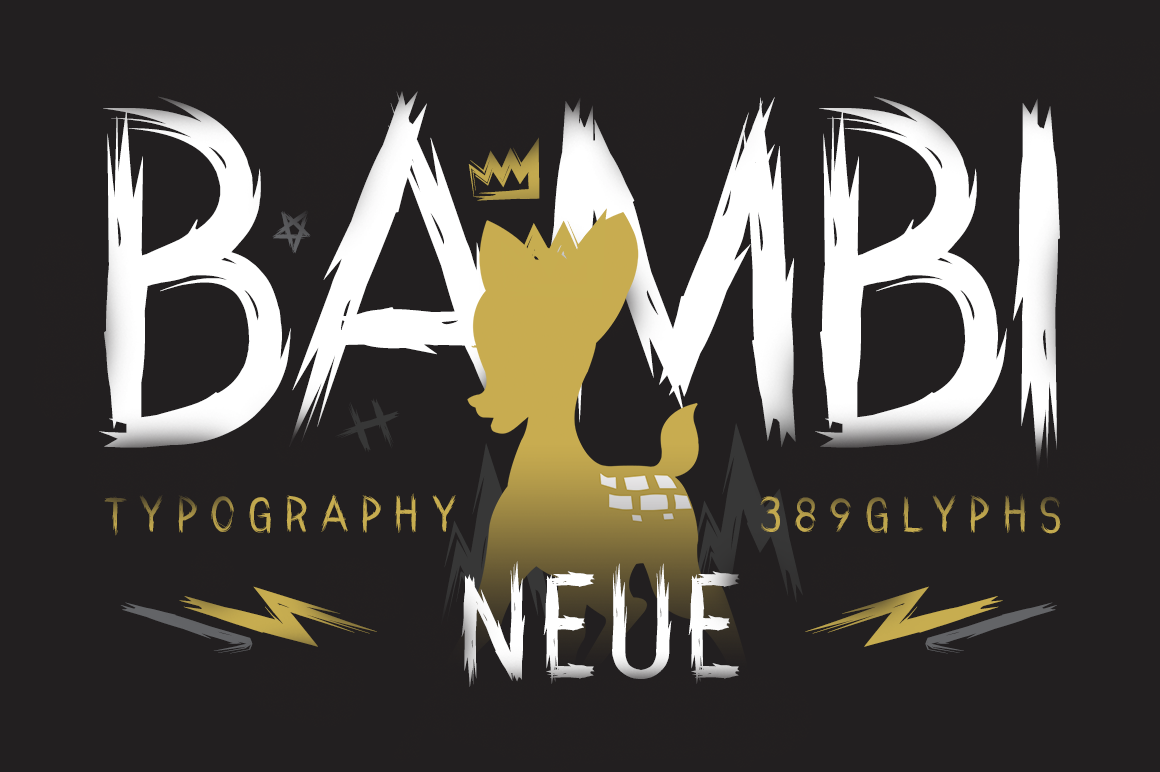
Bambi Neue - Fonts.
Bambi Neue font is a hand drawing fonts mad ewith brush, pixels, and love. All latin language available. Some extra decorative glyphs close de 389 characters available here.